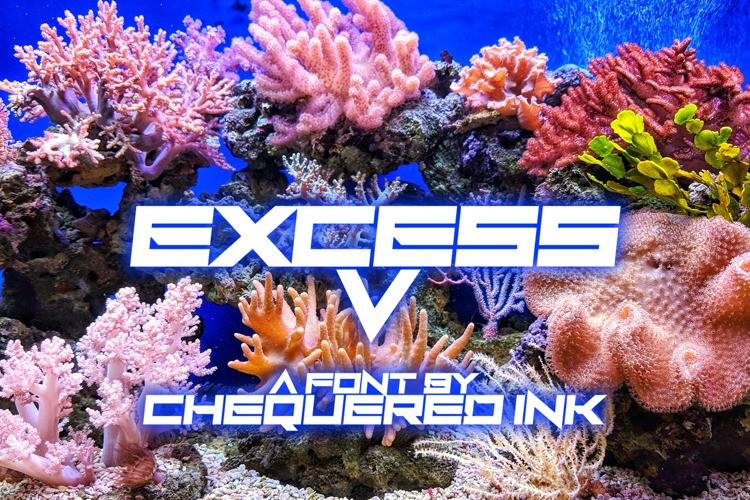
ExcessV Font
ExcessV Font is a bold and experimental display font with a futuristic and edgy visual style. Featuring sharp angles, dynamic letterforms, and a strong modern aesthetic, this typeface is designed to make a powerful statement in creative projects. Its distinctive appearance blends retro-tech influences with contemporary graphic design trends, creating a unique and eye-catching personality.
The font is ideal for posters, album covers, gaming graphics, streetwear branding, logos, social media content, and other bold visual compositions that demand attention. Excess V delivers a strong visual impact while maintaining readability, making it suitable for both digital and print applications.
With its artistic and unconventional character, Excess V is perfect for designers looking to create energetic, modern, and standout typography designs.